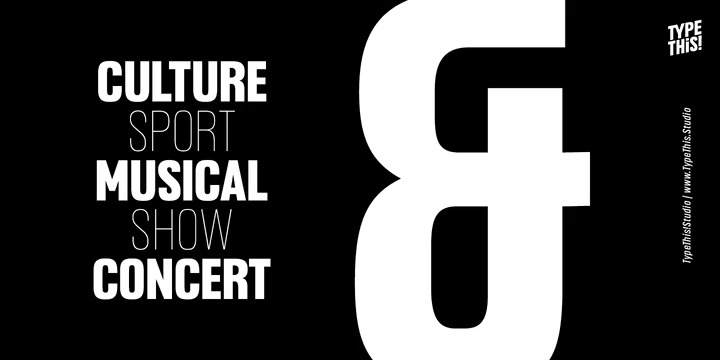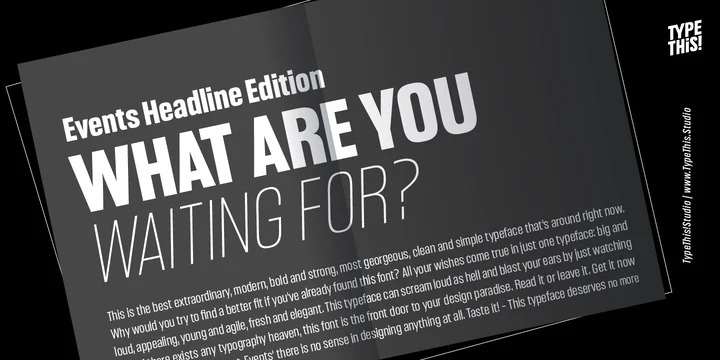
Headlines Sans Serif Font
This is a strong and elegant typeface sans serif. Inspired by the style of design that is currently popular. The condensed letters are designed for clear and straight headlines and also allow longer words and headlines to find the space they need for a well-composed headline. The exciting plus of this font are its discretionary ligatures. The Headlines font family contains a number of special ligatures for certain combinations to fill common visual gaps such as tty, rv and many more.